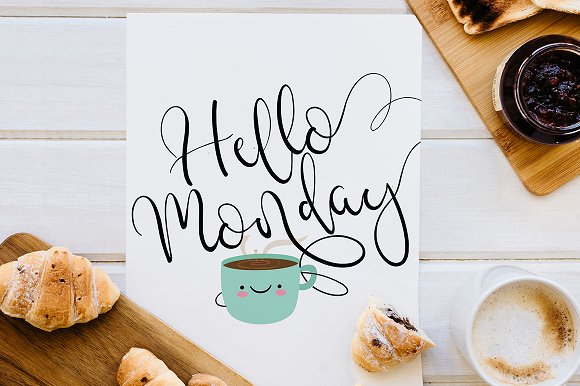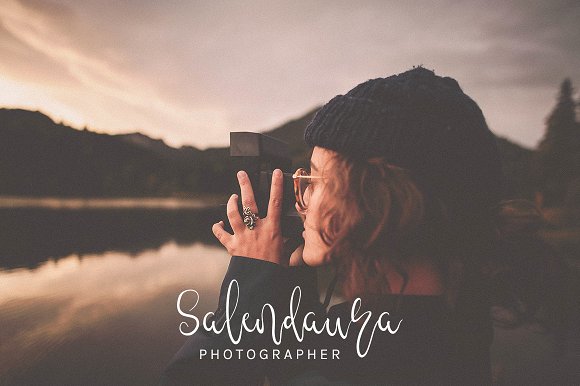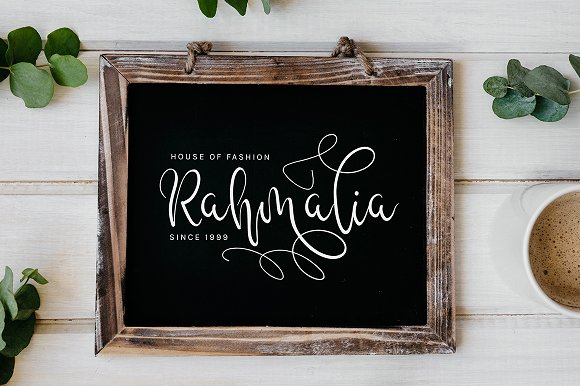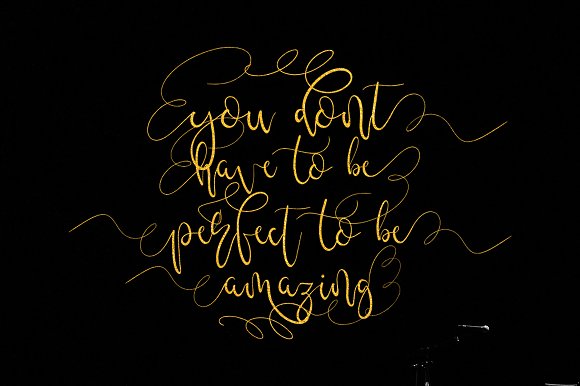
Kallitha Script Font
Kallitha is modern script font with modern script style, this font will perfect for many different project ex: quotes, logo, blog header, poster, wedding, banding, fashion, apparel, letter, invitation, stationery, etc…